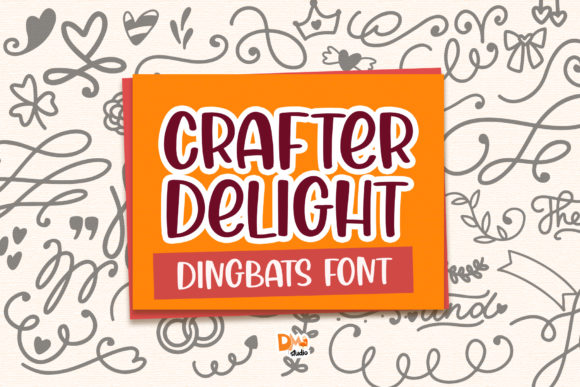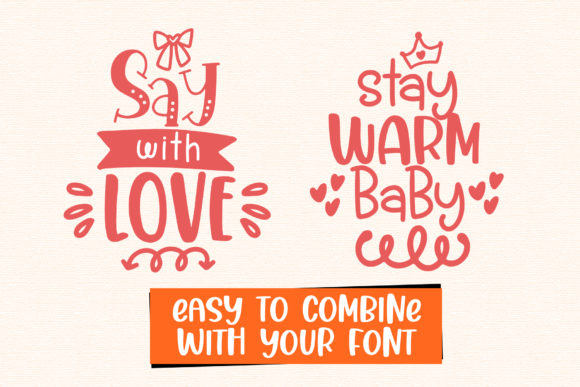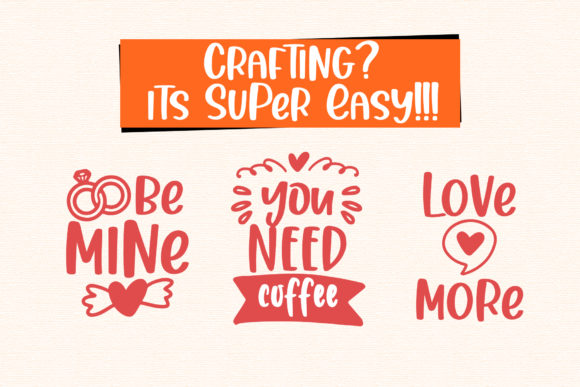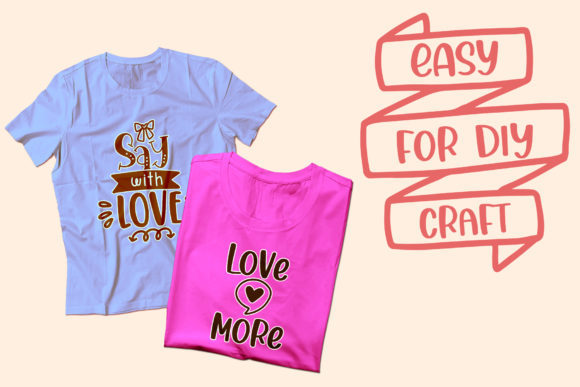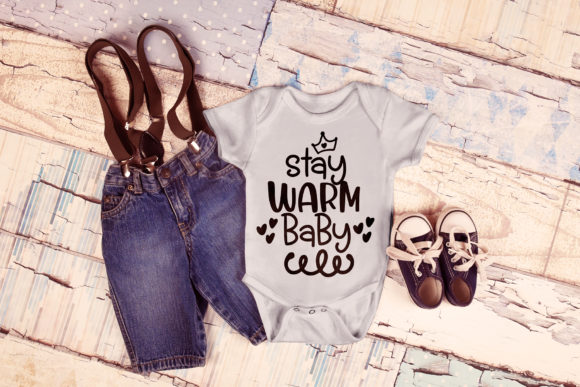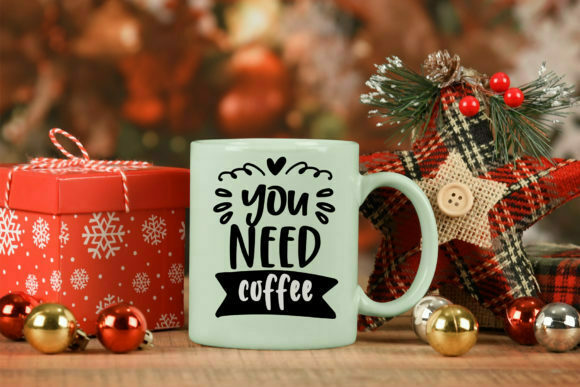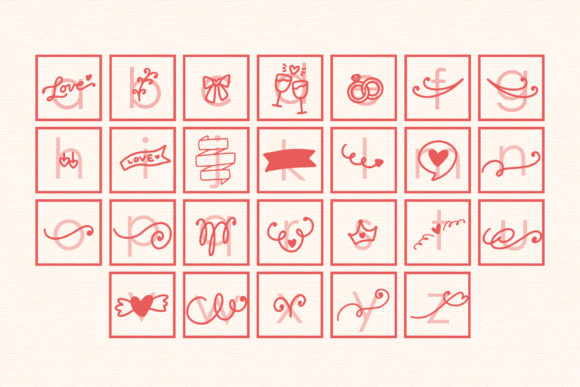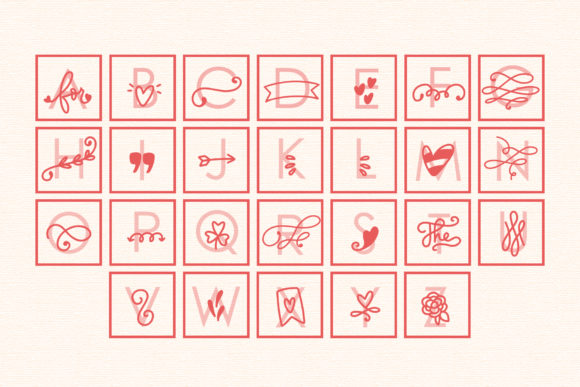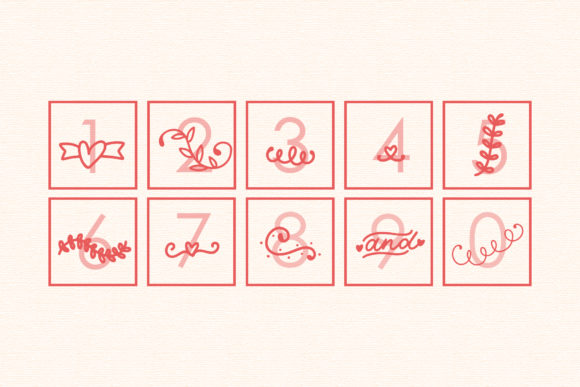
Crafter Delight Font
About Crafter Delight Font
Crafter Delight is indeed a versatile and delightful dingbats font that can enhance any creative project. With its collection of 62 cute and lovely doodles, Crafter Delight offers a wide range of design possibilities. Here are some ways you can use Crafter Delight to elevate your creations:
1. Crafting Projects: Whether you’re working on scrapbooking, card making, or other craft projects, Crafter Delight can be a valuable addition. Use the doodles as decorative elements, borders, or focal points in your designs. The cute and lovely characters in the font can add a touch of charm and whimsy to your crafting creations.
2. Stationery Design: Create unique and eye-catching stationery using Crafter Delight. Use the doodles to design personalized letterheads, notepads, or envelopes. The font’s delightful characters can bring a sense of playfulness and creativity to your stationery designs, making them stand out.
3. Social Media Graphics: Incorporate Crafter Delight into your social media posts, especially if you want to convey a cute and lovely aesthetic. Use the doodles as icons, emojis, or decorative elements in your graphics. They can help capture attention, convey emotions, and add a unique flair to your social media presence.
4. Children’s Projects: Crafter Delight is perfect for children’s projects and materials. Use the doodles to create coloring pages, activity sheets, or educational materials. The cute and lovely characters can engage children and make learning or playtime more enjoyable.
5. Home Decor: Add a touch of cuteness and charm to your home decor with Crafter Delight. Use the doodles to design wall art, framed prints, or decals. They can also be incorporated into custom pillows, blankets, or other fabric-based decorations. Crafter Delight can help create a warm and inviting atmosphere in your living space.
6. Personalized Gifts: Use Crafter Delight to create personalized gifts for friends and loved ones. Incorporate the doodles into custom mugs, keychains, or T-shirts. The cute and lovely characters can add a personal touch and make your gifts extra special.
Remember to explore the wide range of doodles available in Crafter Delight and experiment with different combinations and compositions. Mix and match the characters, adjust their sizes, or layer them to create unique designs. The versatility and charm of Crafter Delight make it a valuable asset to your fonts’ library, as it can elevate any creation with its cute and lovely doodles. So go ahead and let your creativity soar with Crafter Delight!